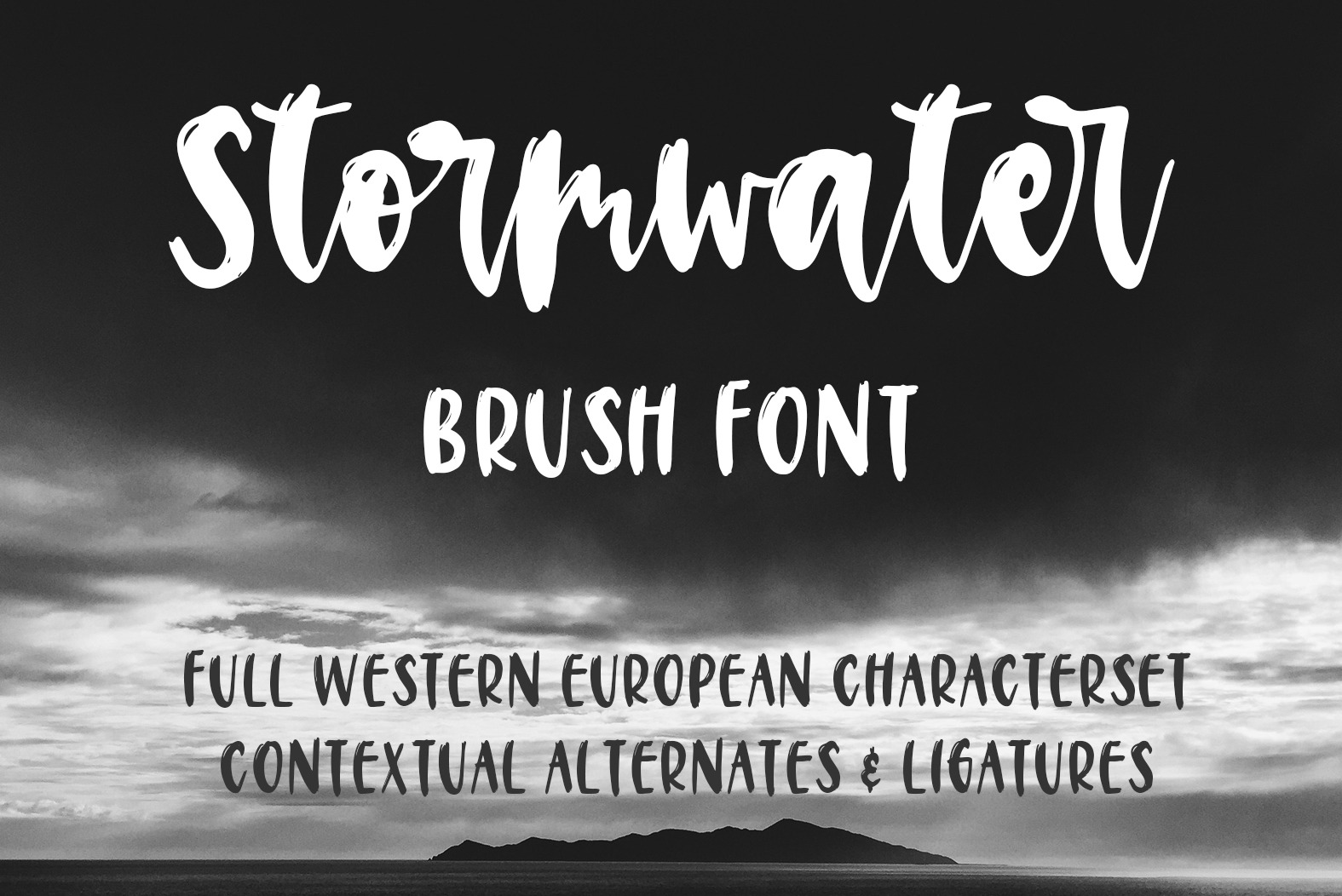
Stormwater Brush Font
Introducing: Stormwater! An edgy and carefree brush font with a natural flow and lots of character. Handmade on my iPad, Stormwater is the perfect choice for large scale signage, shop windows, branding projects, handwritten quotes, homeware designs, product packaging - or simply as a modern & stylish text overlay to any background image.
The uppercase letters can be used for a completely different style, or mix and match lowercase script + all caps for creative designs.